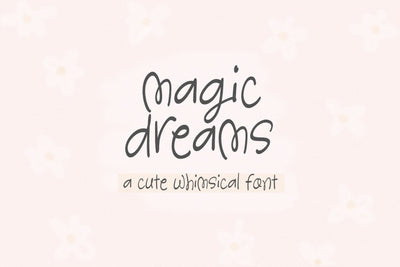
Magic Dreams - Cute Handwritten Font
Magic Dreams is a cute whimsical font
Use this font for shirts, logos, doormats, stickers, procreate designs, instagram quotes, svg files and more!